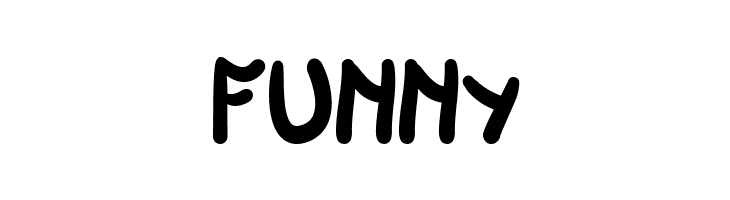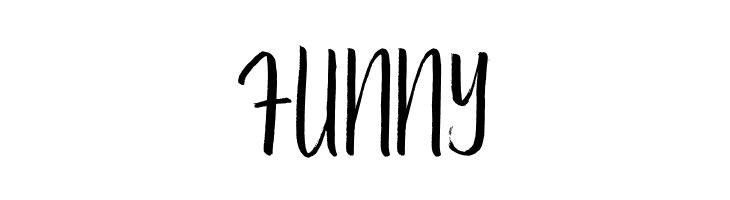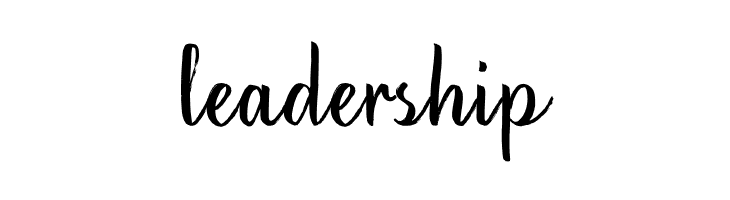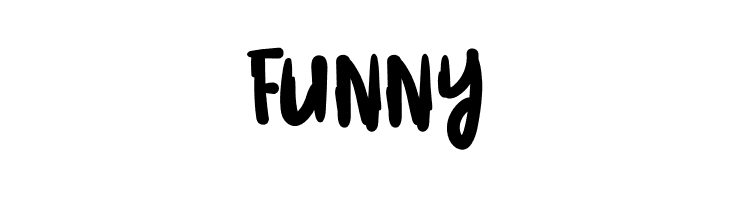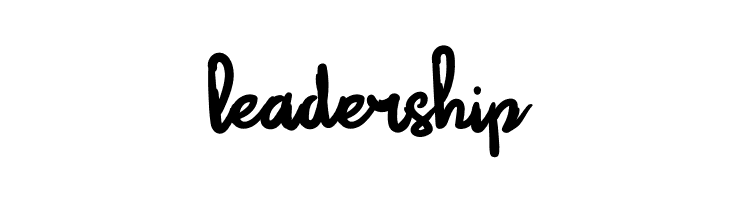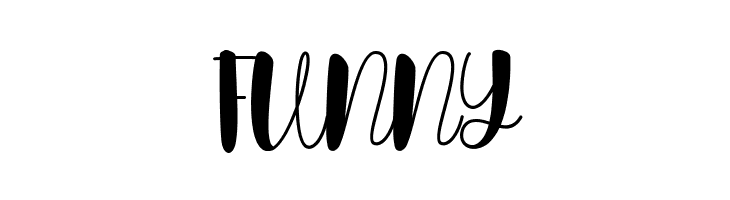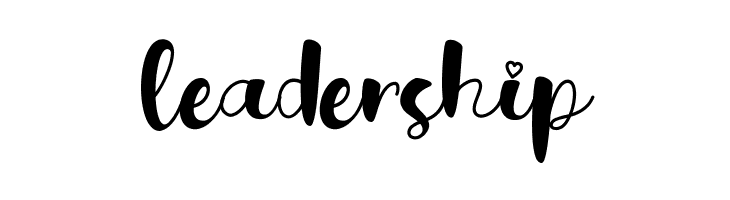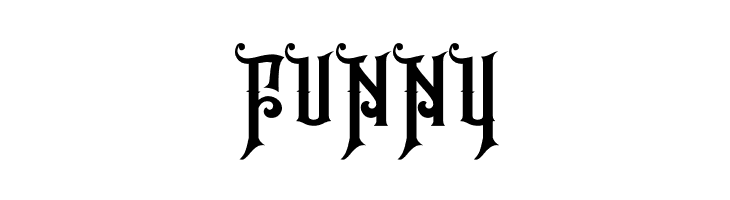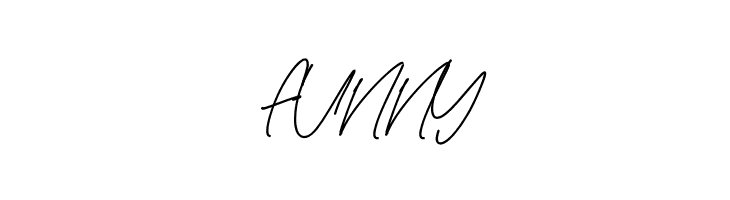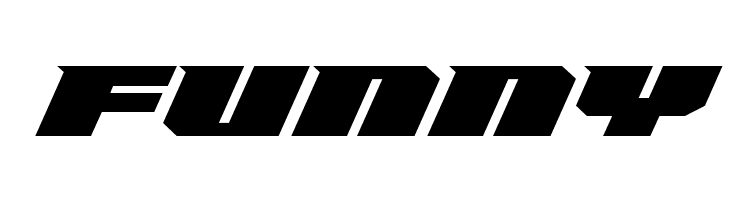
A tall, narrow, and geometric font with a modern aesthetic.
A bold, decorative font with a grunge texture and thick outlines.
A flowing, elegant script font with a natural handwriting style.
A bold, modern font with uniform strokes and strong visual impact.
A bold, heavy font with a rough, distressed texture for a rugged, industrial look.
A bold, distressed font with a rough, vintage texture.
A bold, geometric sans-serif font with a blocky design.
A clean, legible sans-serif typeface designed for readability and clarity.
A clean, modern, and condensed typeface ideal for high legibility.
A modern, bold sans-serif font with wide, evenly spaced characters for high readability.
A narrow, legible sans-serif font ideal for signage and wayfinding.
A modern, wide sans-serif font designed for high readability and clarity.
A bold, geometric font with a futuristic, digital aesthetic.
A bold, geometric font with a digital, futuristic style.
A rugged, distressed font with a fragmented, edgy style.
A bold, tribal-inspired font with sharp, angular strokes and intricate curves.
A bold, distressed font with jagged, chaotic edges.
A tall, narrow serif font with high contrast and sharp serifs.
A dynamic, edgy handwritten font with sharp, angular strokes and a sense of movement.
A playful, handwritten font with flowing, interconnected letterforms.
A playful, bold, and rounded font with a hand-drawn feel.
A futuristic, pixelated font with horizontal line detailing.
A futuristic, pixelated font with a high-tech aesthetic.
A playful, handwritten font with bold and flowing strokes, perfect for informal and creative projects.
A bold, Gothic-inspired font with intricate detailing and sharp, angular lines.
A graceful script font with fluid, interconnected letters and elegant flourishes.
A bold, playful handwritten font with a casual and friendly style.
A lively handwritten font with fluid, organic strokes and a playful aesthetic.
Tall, thin handwritten script with playful, casual style.
A lively, handwritten script font with fluid, connected characters.
A playful, bold, and rounded font with a cartoonish style.
A playful, bold font with rounded, cartoonish characters.